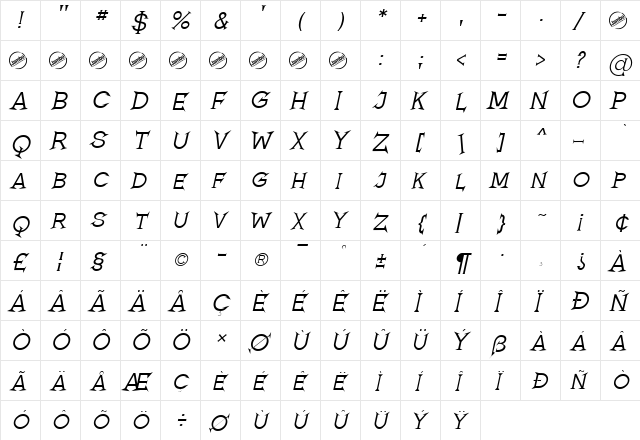
Romanicum Italic
| Foundry | Jambo! |
| Designer | Jambo! |
Design Context for Romanicum Typeface
Romanicum is a composed and adaptable typeface that performs quietly and consistently across a wide range of design contexts. Its italic angle brings a sense of urgency and motion to the letterforms.
Pro Tip: Use Romanicum for emphasis, pull quotes, and subheadings where its slanted energy can add rhythm to the layout.